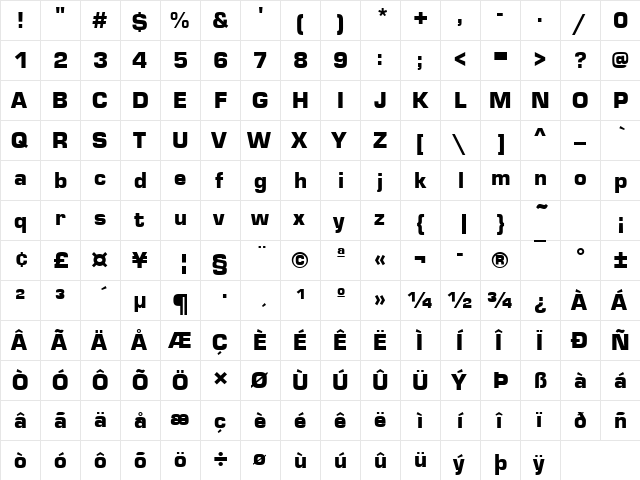
Eurostar Black
| Foundry | MGI Software |
Design Context for Eurostar Typeface
Eurostar takes a measured approach to typography — its balanced proportions and neutral character make it a reliable workhorse for both digital and print work.